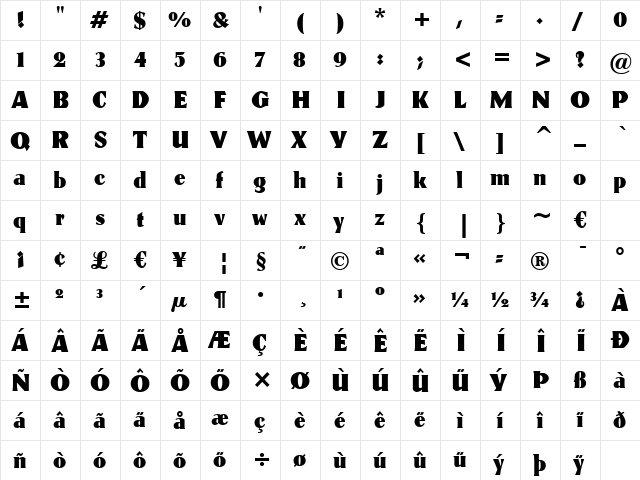
Kuenstler165 Hv BT Heavy
Design Context for Kuenstler165 Hv BT Typeface
Kuenstler165 Hv BT offers clean, dependable letterforms without strong stylistic allegiance, making it a practical choice for designers who need flexibility.
Pro Tip: Pair Kuenstler165 Hv BT with a font of contrasting weight or personality to build a more expressive typographic hierarchy.